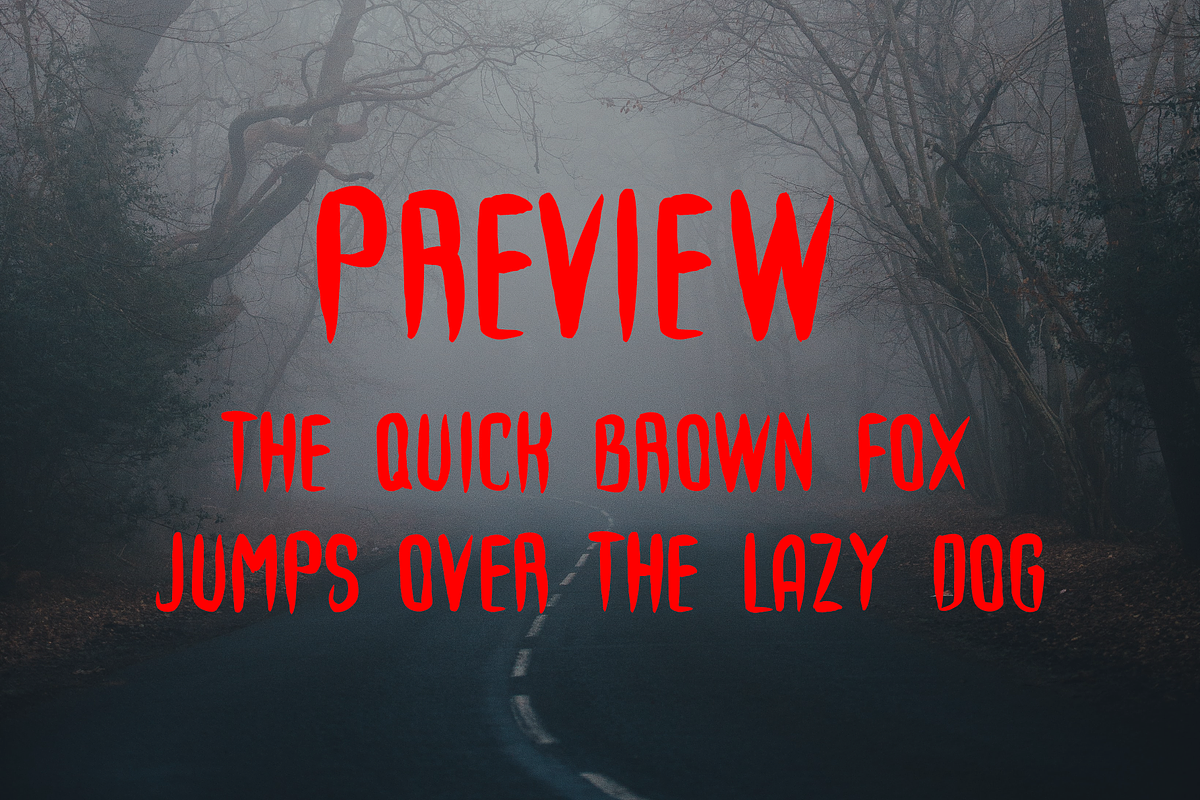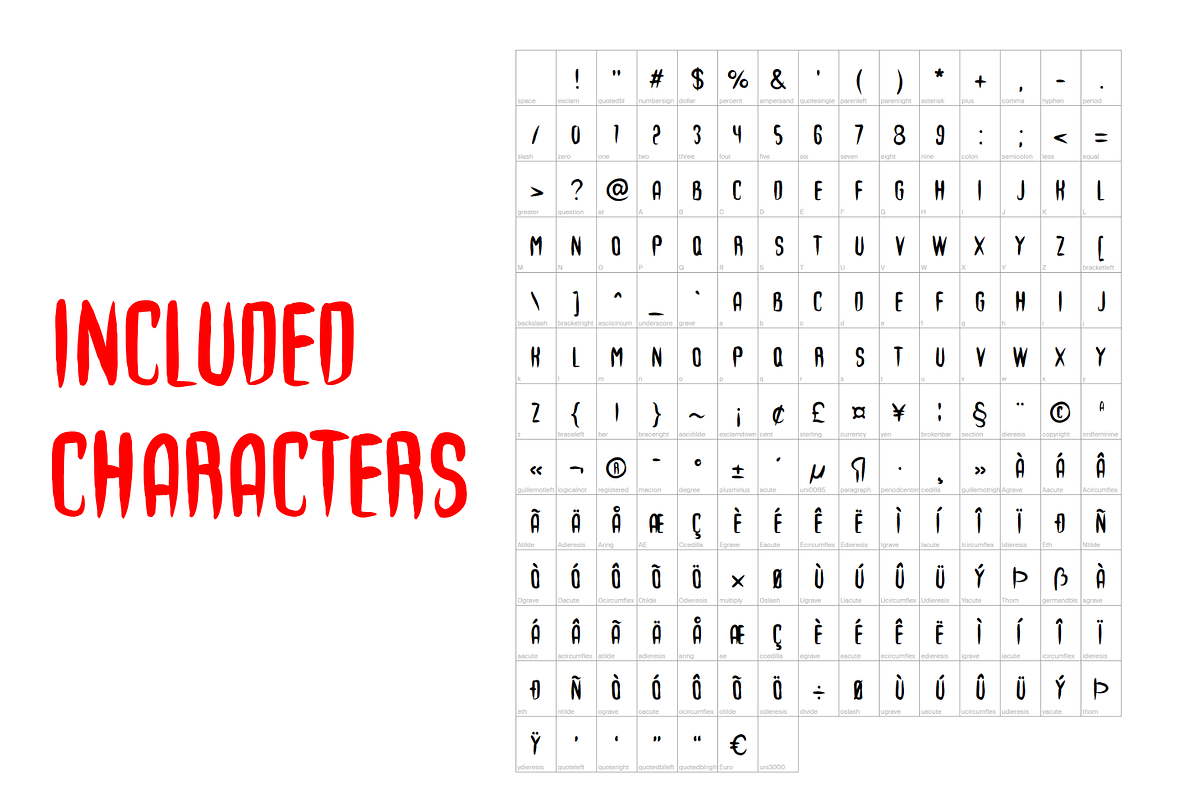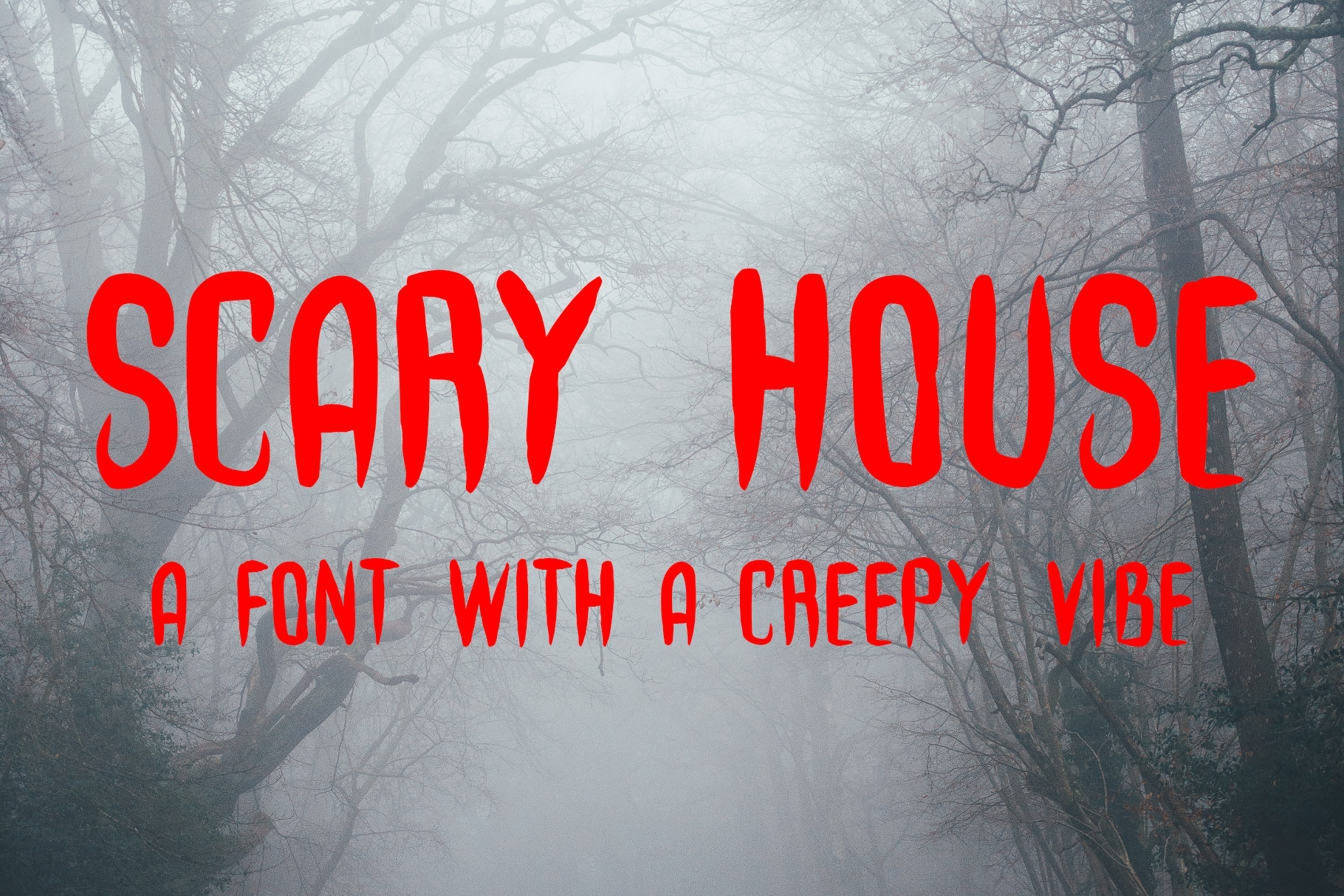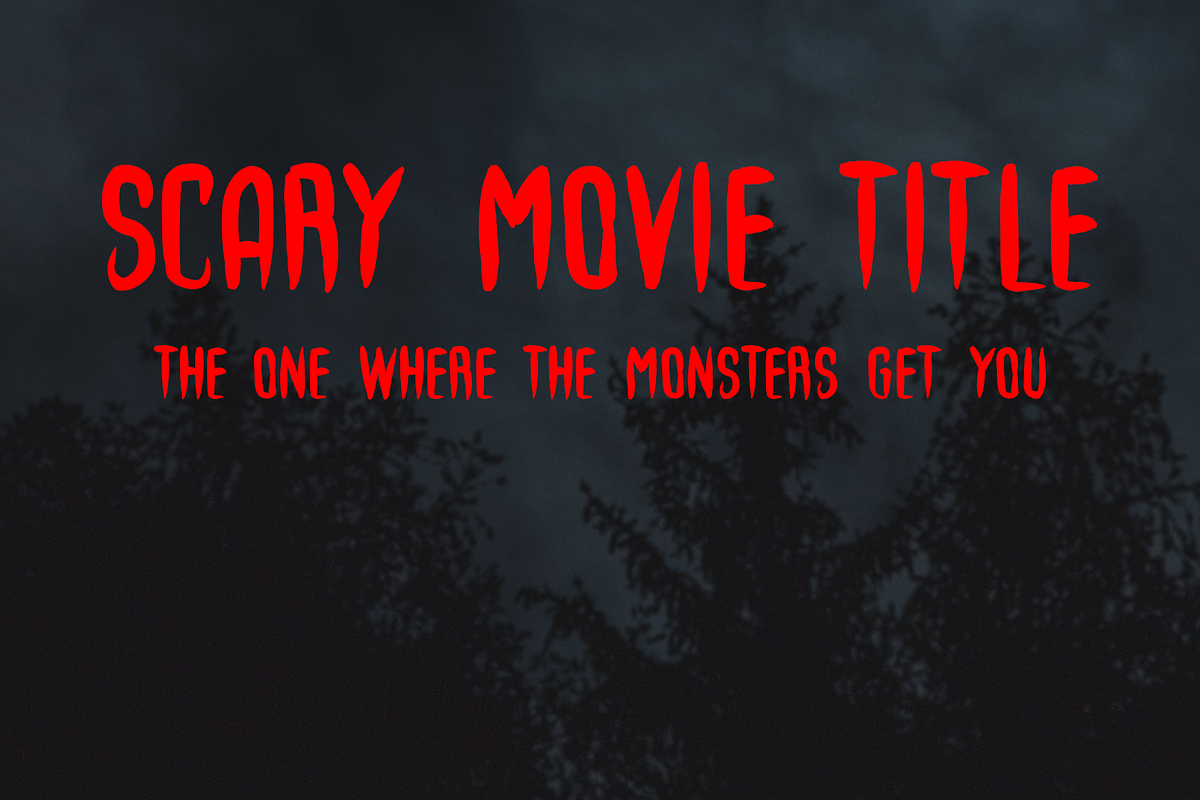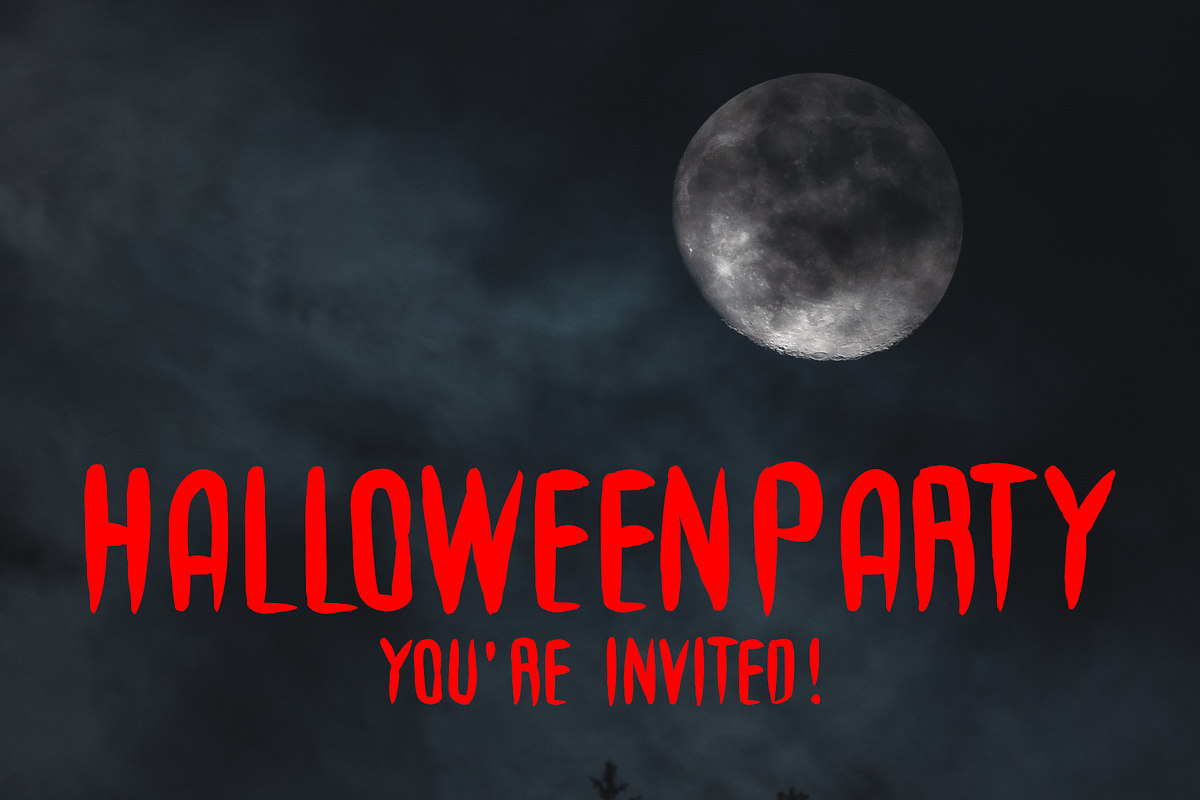
Scary House | a creepy font
Scary House is a fun handwritten display font with a creepy vibe, perfect for Halloween or any other project where you'd like a more scary feeling.
It's made with usability in mind, you can write in both uppercase and lowercase with the same beautiful result.